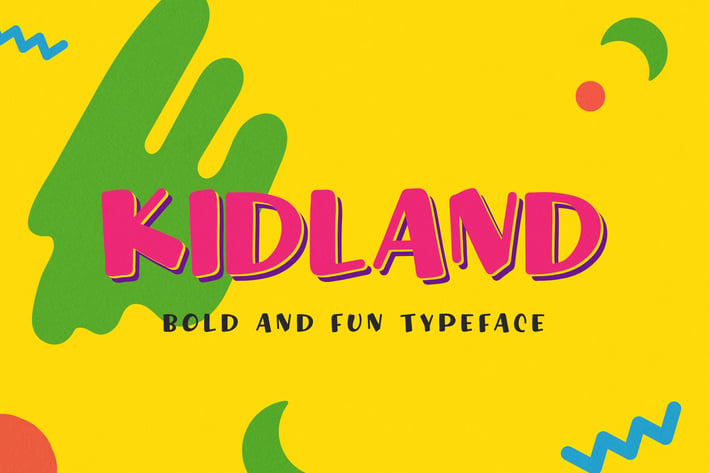
Kidland - Bold And Fun Typeface
Are you looking for a bold and fun font? We can help! Try to download our Delicious kidland font. The font is suitable to use for casual purpose especially children related occasion :)
Basic Latin A-Z and a-z